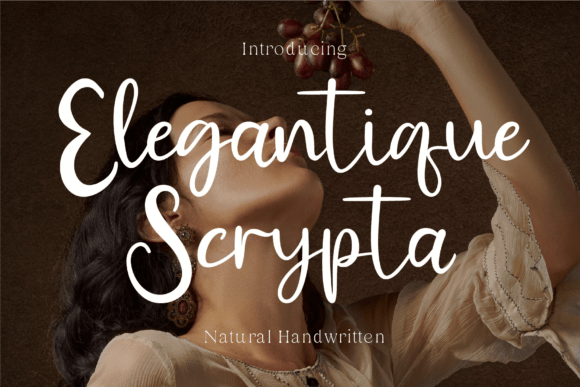
Discover the Timeless Elegance of Elegantique Scrypta Font
Imagine yourself surrounded by luxurious paper, exquisite stationery, and delicate calligraphy – the perfect setting for a wedding invitation or a high-end brand launch. It’s in these moments that we crave something truly special, something that exudes refinement and sophistication. For designers seeking to create an unforgettable impression, Elegantique Scrypta Font is the perfect choice.
This stunning handwritten script font combines the charm of traditional calligraphy with a modern touch, making it the ideal selection for luxury branding, editorial design, fashion labels, and upscale packaging. With its fluid strokes, delicate curves, and organic flow, Elegantique Scrypta Font adds a touch of exclusivity to every word, making it a valuable asset for designers who demand the best.
Elegantique Scrypta Font Key Features
- Character Set: The font features a comprehensive character set, including Latin, Cyrillic, and Greek alphabets, as well as a range of punctuation and special characters.
- Unique Characteristics: The font’s elegant and refined design makes it perfect for use in high-end branding, advertising, and editorial applications. Its scrypta-inspired script style adds a touch of sophistication and elegance to any design.
Elegantique Scrypta Font Review
I recently had the chance to work with the Elegantique Scrypta font, and I must say, it’s a unique addition to any design project. Here are my thoughts on what works well and what doesn’t.
- Uniqueness: Elegantique Scrypta is a one-of-a-kind font that adds a touch of sophistication to any text. Its intricate details and swirling patterns make it perfect for titles and headings.
- Legibility: Despite its ornate design, the font is surprisingly readable, even at smaller sizes. This makes it a great choice for body text in designs where you want to add some flair.
- Flexibility: Elegantique Scrypta comes in a range of weights and styles, making it easy to adapt to different design needs.
- Difficulty in use: The font’s complexity can make it challenging to work with, especially for those without experience with ornate typography.
- File size: Due to its intricate details, the font file can be quite large, which may cause issues with slower systems or when working with limited storage space.
Overall, I think Elegantique Scrypta is a beautiful and unique font that adds a touch of elegance to any design. While it may present some challenges, the results are well worth the extra effort. With practice and patience, designers can unlock the full potential of this stunning font.
For the most elegant results, use Elegantique Scrypta Font in combination with a clean and simple design.
Experiment with different font sizes and styles to create visual interest and emphasis.
Use the font in headings and titles to add a touch of sophistication and elegance.
Elegantique Scrypta Font is perfect for:
Business cards and marketing materials
Book covers and literary designs
Any design that requires a touch of elegance and sophistication